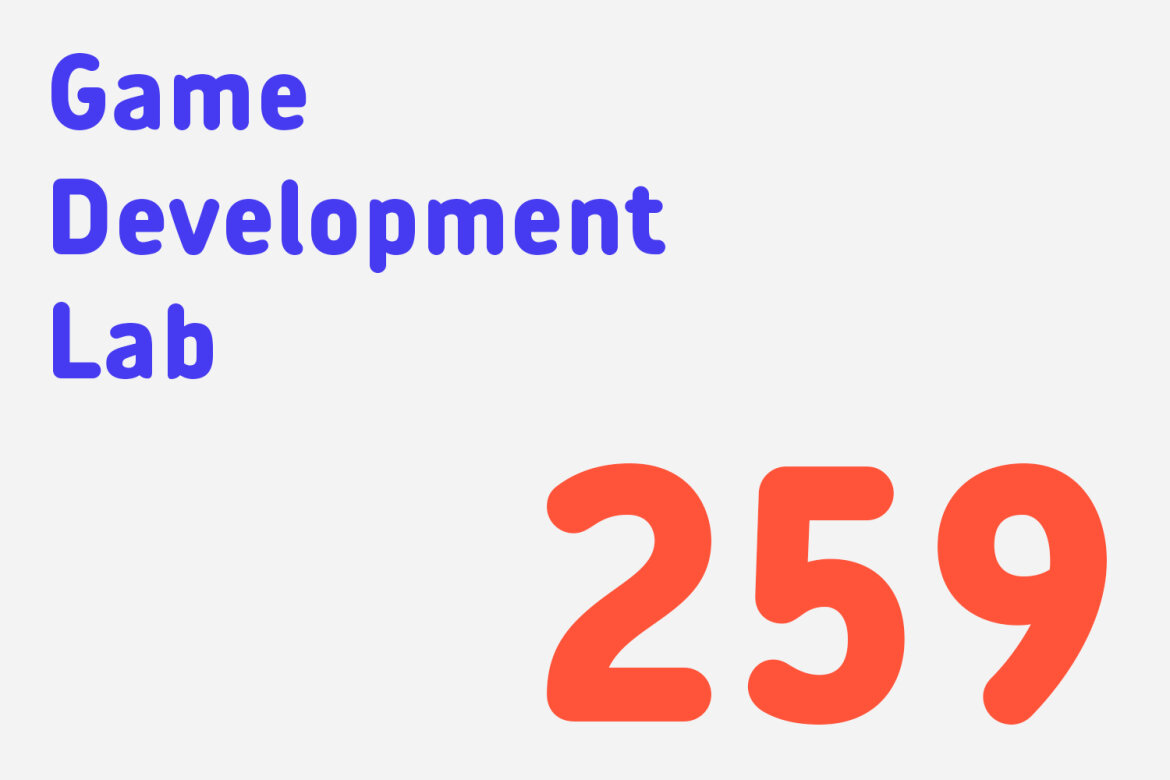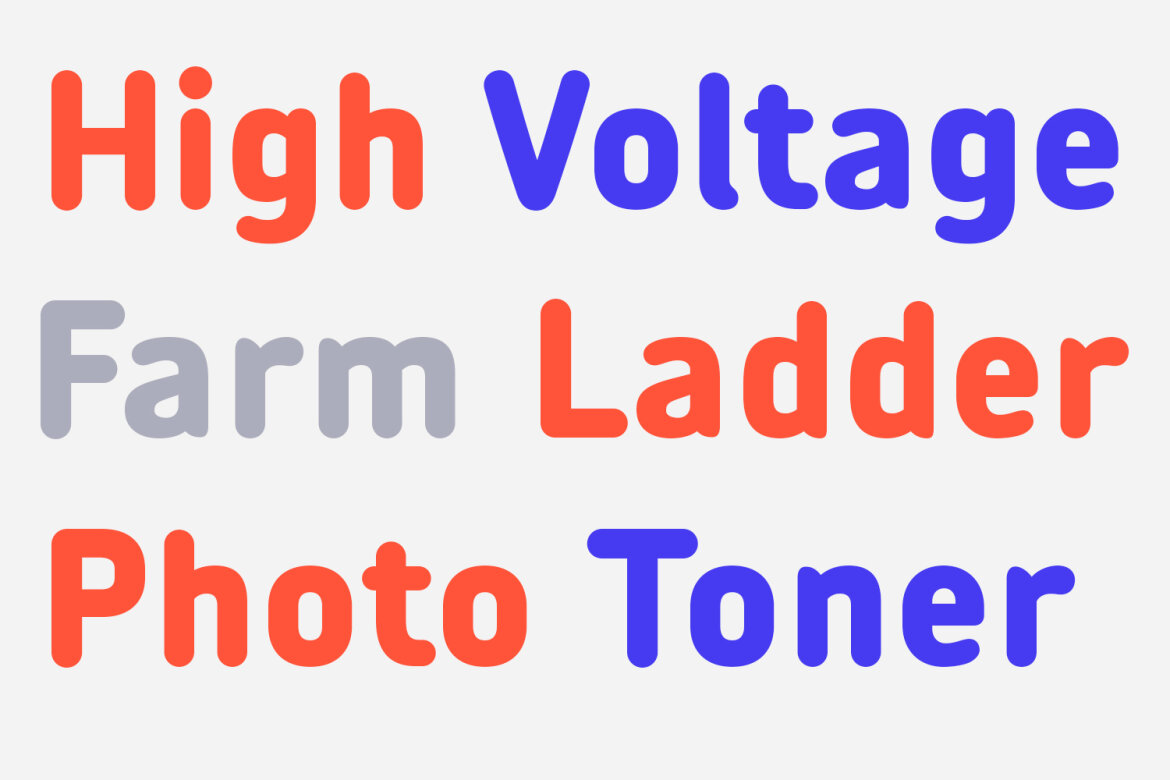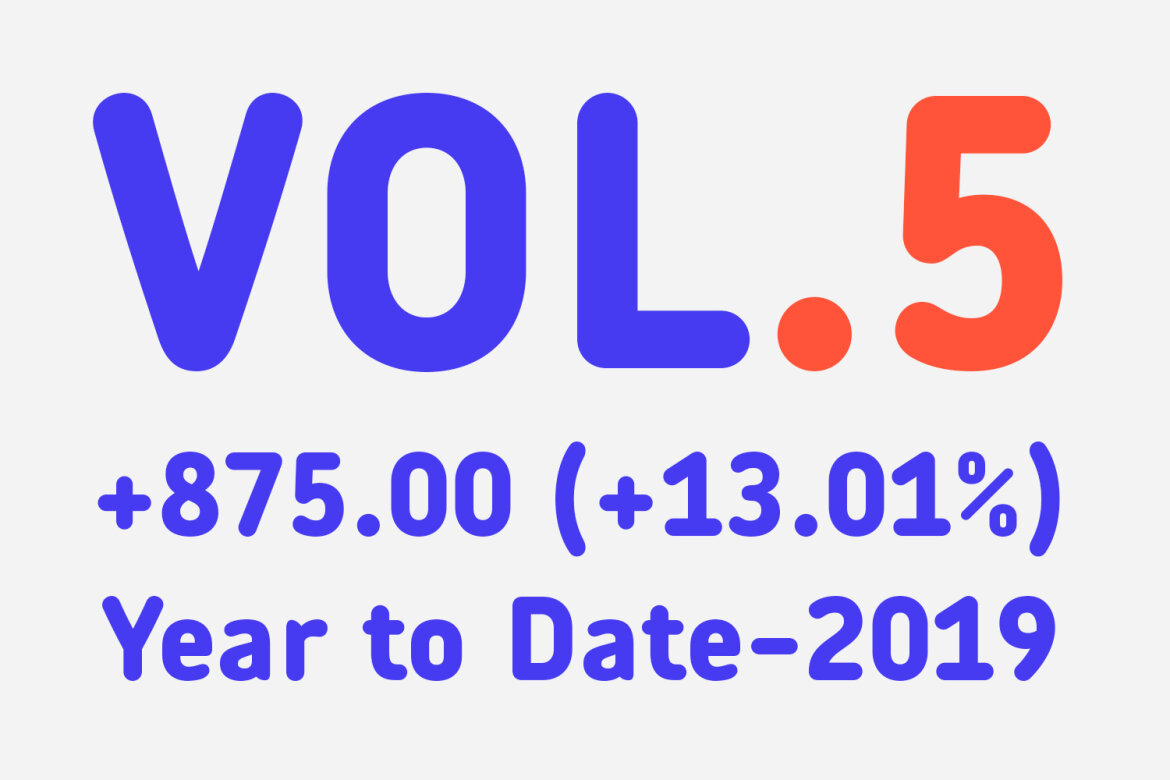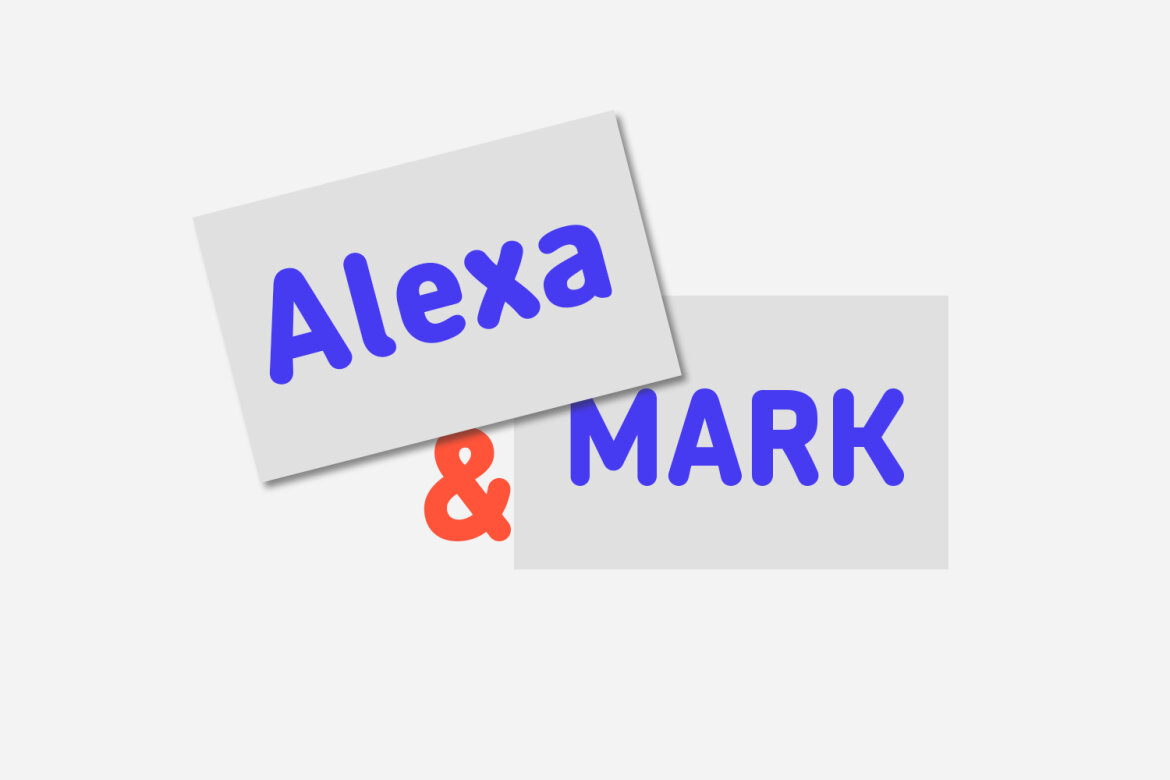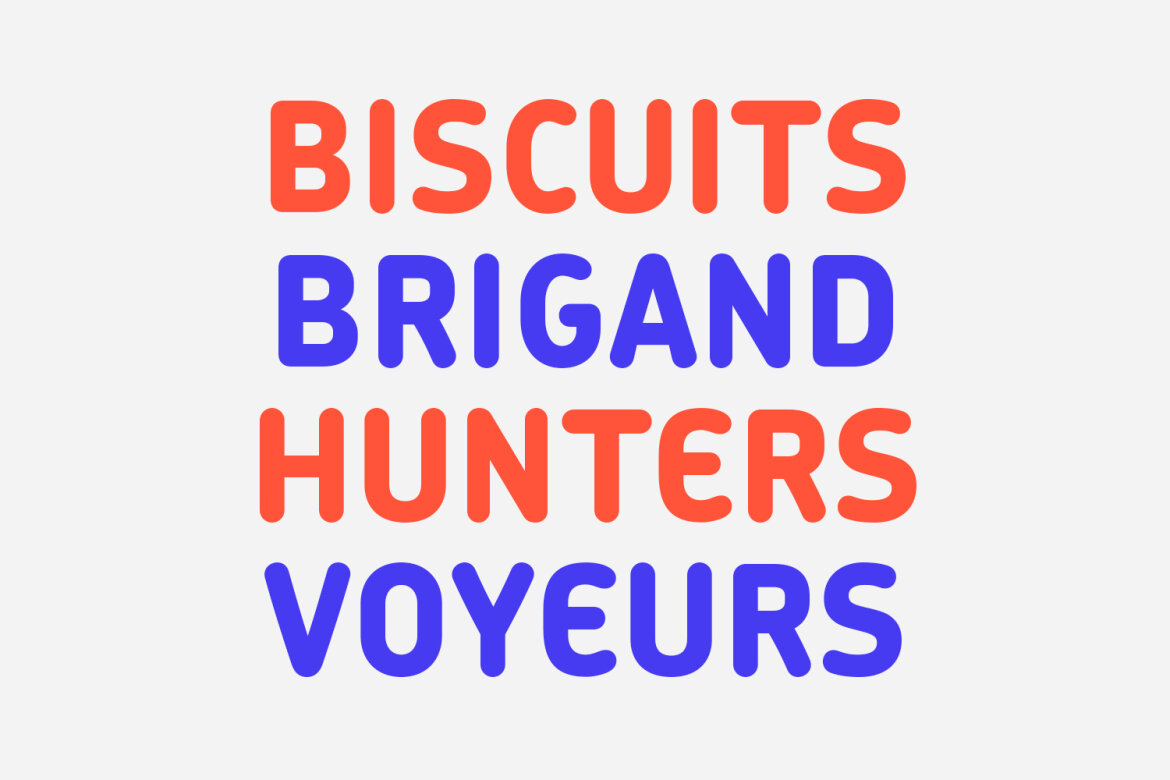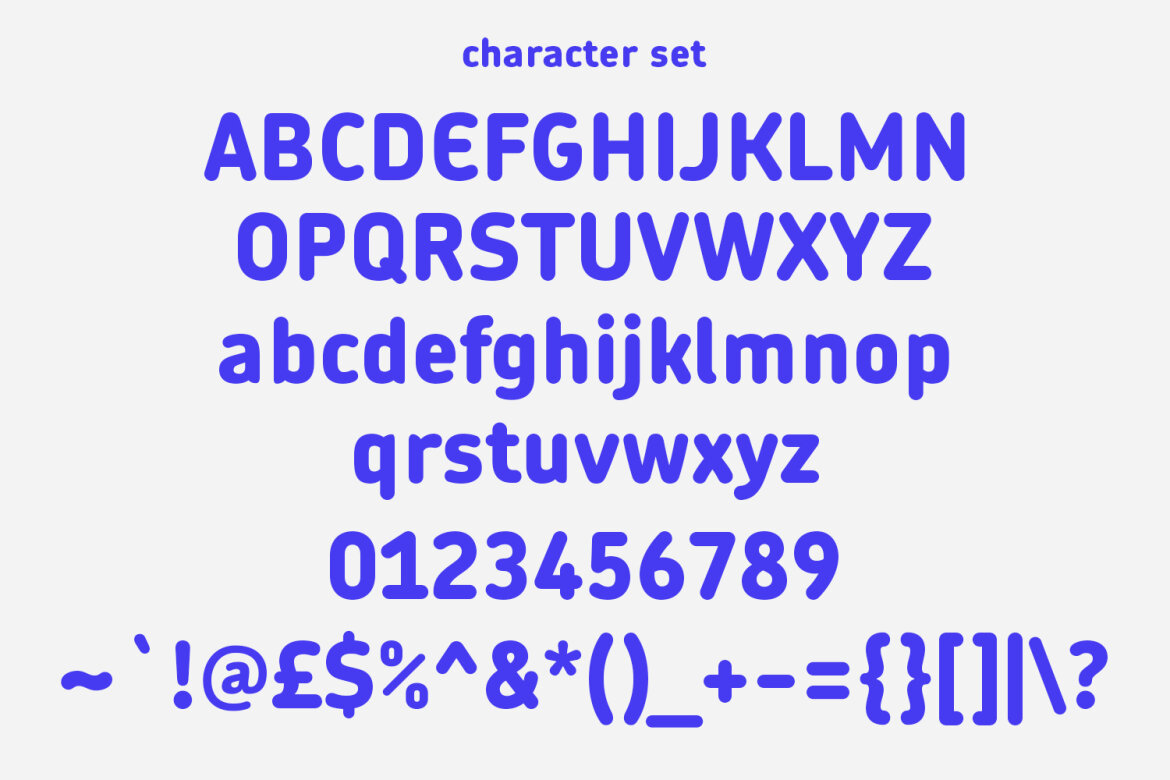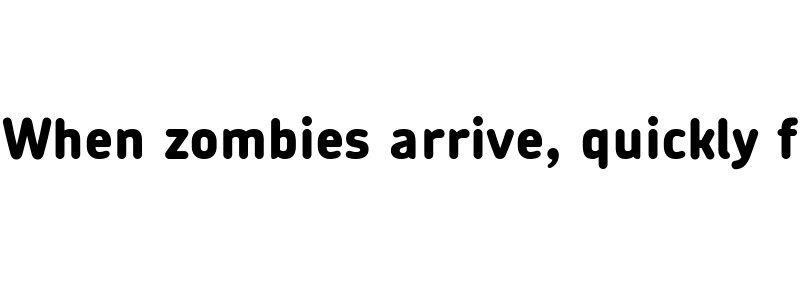
Erfink Sans FREE Font
Erfink preview
Erfink
Erfink is a modern fun sans serif font. With medium soft stroke, fun character with a bit of ligatures and alternates. To give you an extra creative work. Erfink font support multilingual more than 100+ language. This font is good for logo design, Social media, Movie Titles, Books Titles, a short text even a long text letter and good for your secondary text font with script or serif. Make a stunning work with Erfink font.